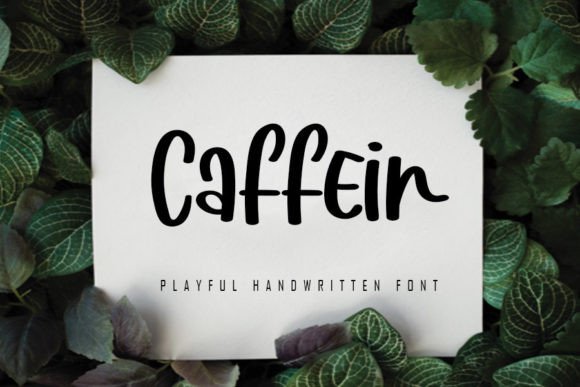
The Enchanting Caffein Font: A Designer’s Dream Come True
I’ll never forget the time I was working on a project for a client who wanted a romantic, whimsical feel. I had spent hours browsing through font libraries, but nothing seemed quite right. That was when I stumbled upon the Caffein font, and it instantly became the perfect fit. In this article, I’ll share my experience with this enchanting handwritten font, its features, and how to make the most of it in your designs.
An Honest Review of Caffein Font
What I Love About Caffein Font
- ✨ Romantic and Whimsical Feel: Caffein font has a unique, enchanting quality that adds a touch of romance to any project.
- ✅ Versatility: This font is incredibly versatile and can be used for a wide range of applications, from greeting cards to headlines.
- 💫 Handwritten Charm: The font’s handwritten style gives it a personal, human touch that’s perfect for designs that require a bit of personality.
While Caffein font is amazing, there are a few things to keep in mind:
- 🤔 Legibility at Small Sizes: Like many handwritten fonts, Caffein can be a bit tricky to read at very small sizes. It’s best used at larger sizes, such as headlines or titles.
- ⚠️ Overuse: While Caffein is beautiful, using it excessively can make your design look cluttered. Balance is key when working with this font.
The Backstory of Caffein Font
Caffein font was designed with the intention of creating a beautiful, romantic font that captures the essence of handwritten writing. The designer aimed to create a font that’s both elegant and whimsical, perfect for designs that require a personal touch.
Q: What is the best use for Caffein font?
A: Caffein font is perfect for designs that require a romantic, whimsical feel, such as greeting cards, headlines, and creative projects.
Q: Is Caffein font easy to read?
A: Caffein font is generally easy to read, but like many handwritten fonts, it can be a bit tricky to read at very small sizes.